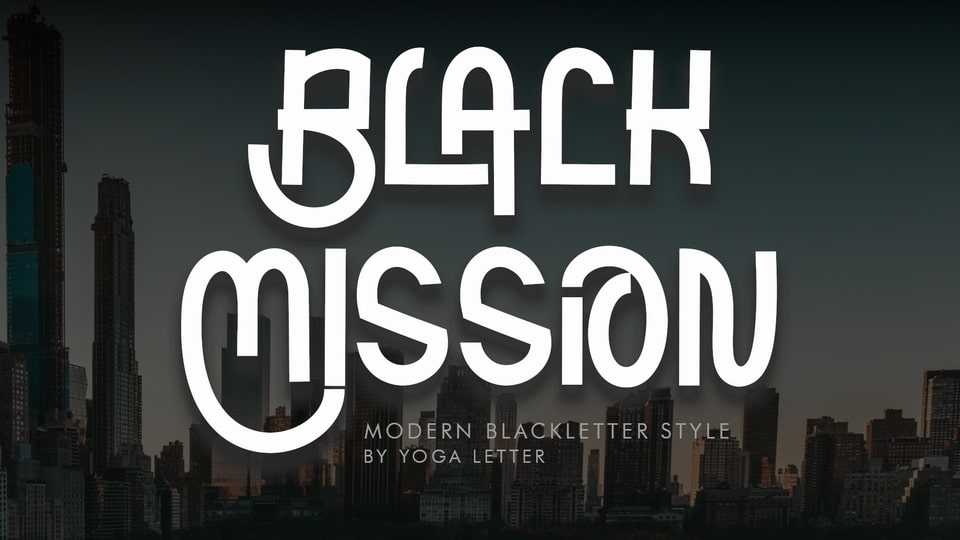
Download Black Mission font, an elegant and modern blackletter typeface. It’s perfect for Halloween, Christmas, business branding, stickers, posters, prints, tattoos, social media, and more.